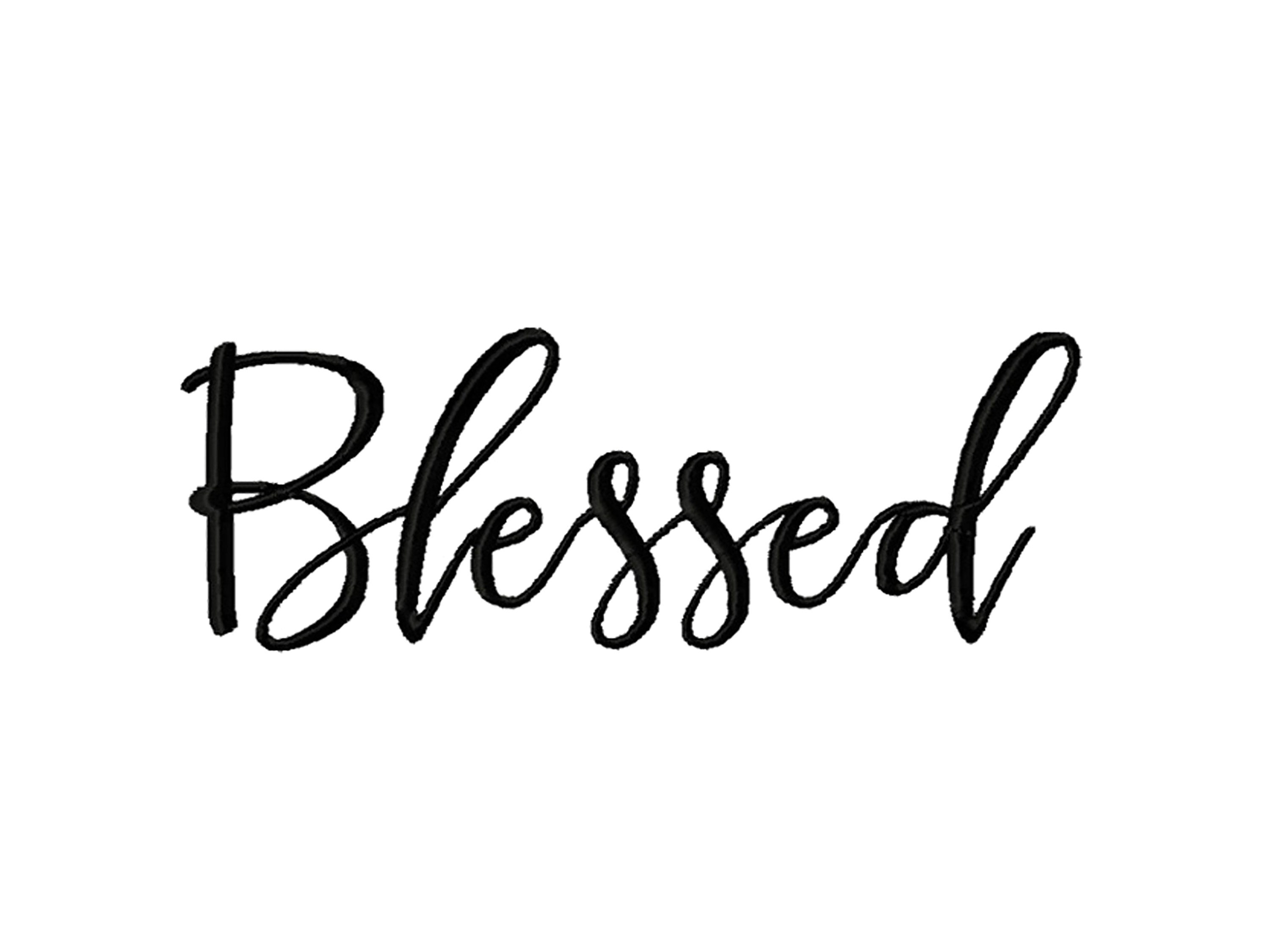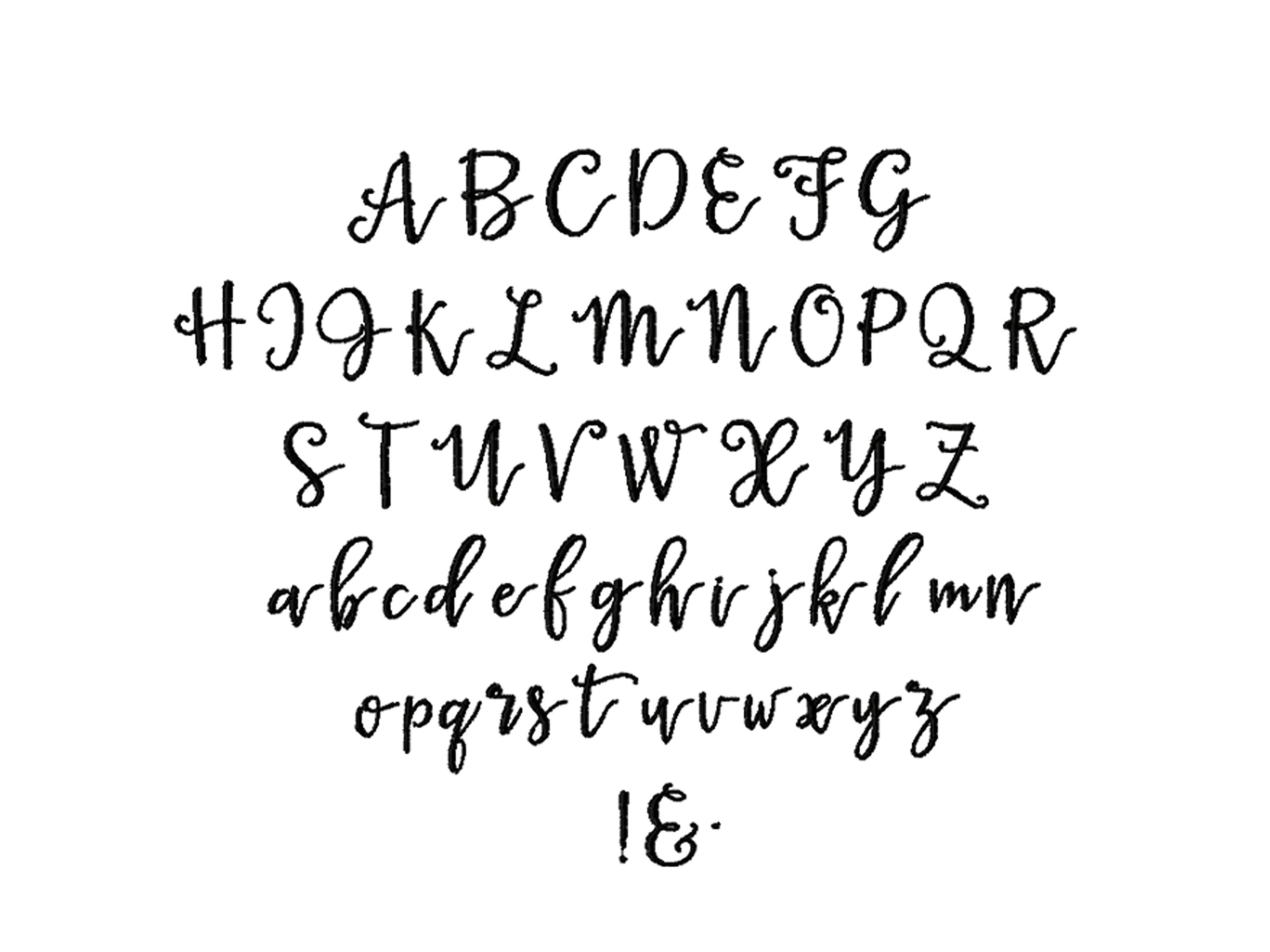
Blessed Script Font A-Z 6inch Machine Embroidery Font Digital Download | Lovesome Design
This listing features a machine embroidery font set which includes embroidery files of 26 uppercase, 26 lowercase letters and a few extra in 6inch size. (For the whole set, pls see the listing images.)
This machine embroidery alphabet set is for 6x10 embroidery hoops. Great for customizing and monogramming. Either you are a DIYer or a small business owner, our embroidery fonts are perfect for your projects with its all elegant floral details.